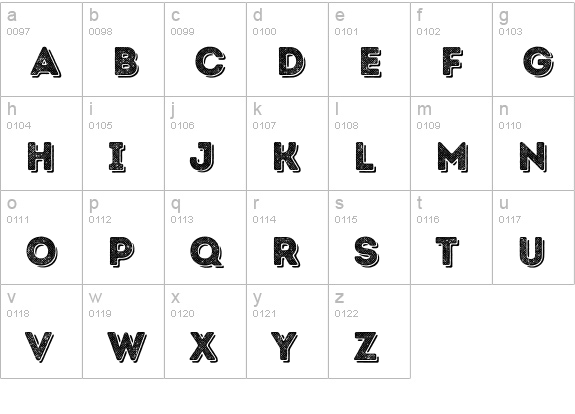
The Intro Rust H2 Base Shade font is a striking display typeface that exudes a unique blend of vintage charm and modern appeal. With its bold and dynamic design, this font is sure to make a statement in any project it is used in. The H2 Base Shade variant features a distinctive shading effect that adds depth and dimension to each character, making it stand out on any design piece. What sets this font apart is not just its eye-catching appearance, but also the fact that it is available for free download at FontsMarket.com. This means that you can easily access and use this font in your personal and commercial projects without any cost. Whether you're working on branding, posters, packaging, or any other creative endeavor, the Intro Rust H2 Base Shade font is a versatile and powerful tool that will elevate your designs to new heights. Download it today and unleash your creativity with this exceptional typeface.